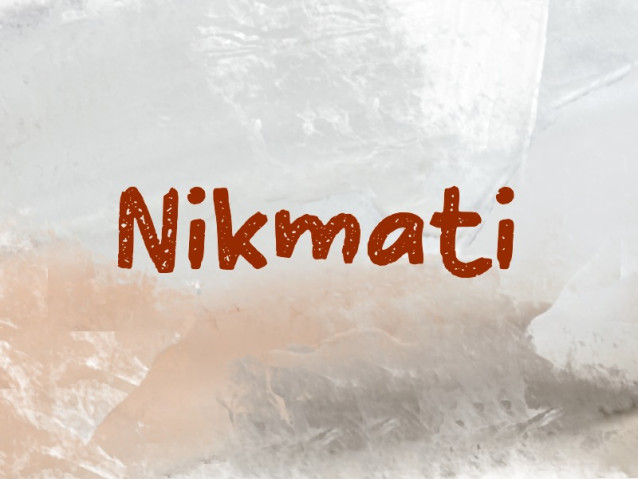
Nikmati Font
Nikmati Font is a simple and modern display font suitable for quotes, logos, headings, titles, and many more. Use it on any of your creative projects, and your designs will become outstanding!